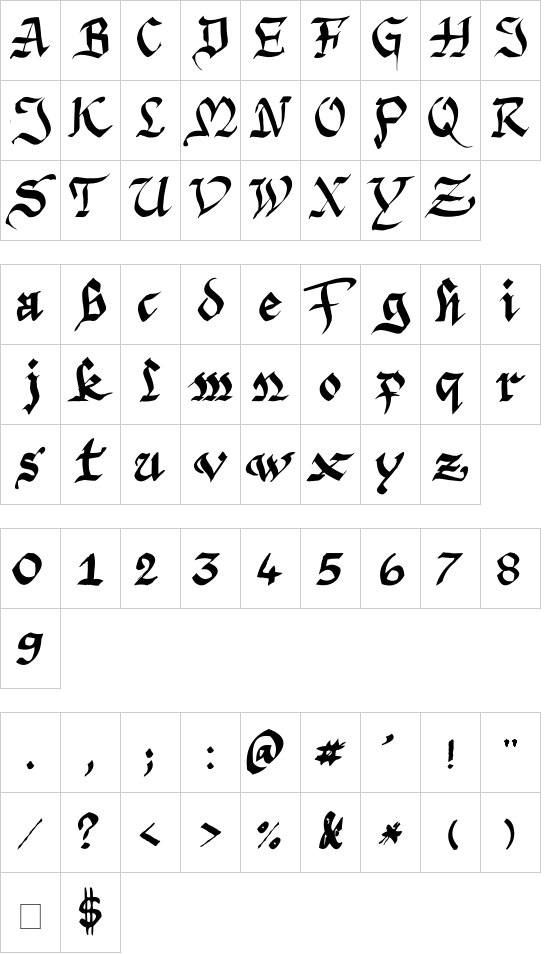
Argor Got Scaqh is a medieval blackletter face with ornate Old English strokes and dense gothic detailing. The heavy verticals, sharp angles, and decorative spurs recall hand-inked manuscripts, giving it a weighty, historic character built for ceremony.
That aged feel fits fantasy game titles, certificate borders, brewery and tattoo branding, and document headlines that want an antique look. Argor Got Scaqh is free to download as a TrueType file, and you can preview it with your own text to see how the dense gothic forms come together.